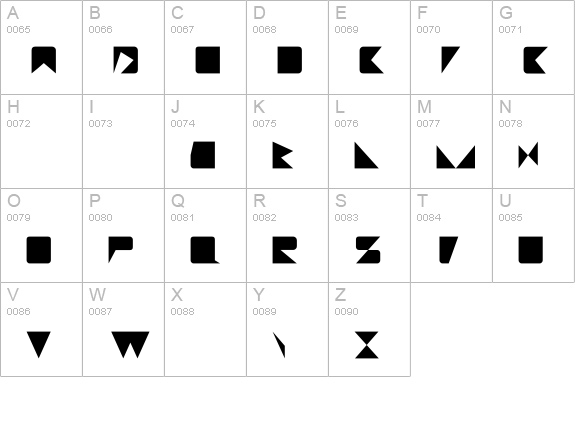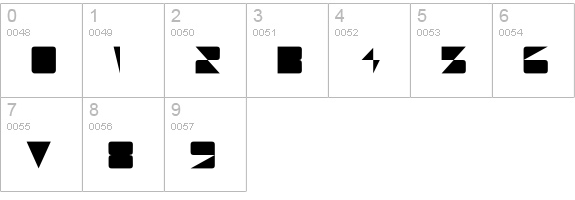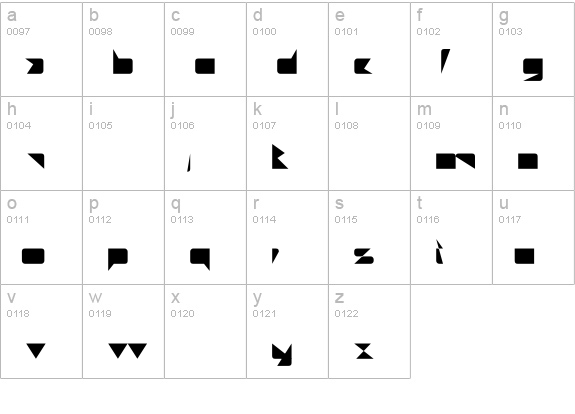
Miami Font Details
Miami font is a modern and stylish typeface that exudes a vibrant and energetic vibe. With its sleek lines and contemporary design, Miami font is perfect for projects that require a touch of sophistication and flair. Whether you are working on branding materials, advertisements, or social media graphics, Miami font will surely make your text stand out. What sets Miami font apart is not only its sleek aesthetics but also the fact that it is completely free to download. Yes, you read that right - this stunning font can be yours at no cost! Simply head over to FontsMarket.com to download Miami font and start using it in your projects today. Don't miss out on this fantastic opportunity to elevate your designs with Miami font's modern and stylish appeal.